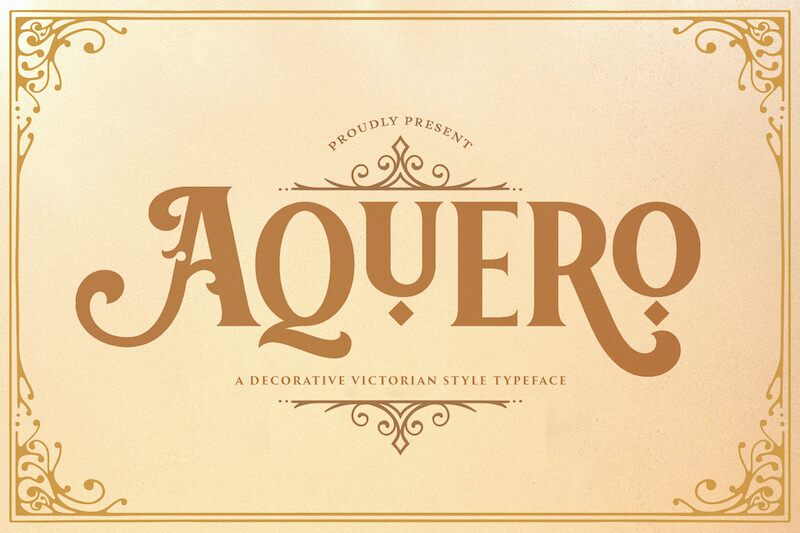
Aquero, a creation of StringLabs Creative Studio, is a captivating display font that exudes a delightful retro-inspired charm. This condensed serif typeface boasts a distinctive personality, with its bold strokes and subtle quirks that evoke a timeless elegance. The intricate details and refined aesthetics of Aquero make it a standout choice for designers seeking to infuse their projects with a touch of vintage allure.
Aquero's versatility shines through its ability to seamlessly adapt to a wide range of applications. From eye-catching headlines and impactful logotypes to captivating poster designs and editorial layouts, this font's unique character lends itself beautifully to various creative endeavors. Its condensed width allows for versatile typographic arrangements, making Aquero an excellent choice for projects that require a bold and refined typographic presence.